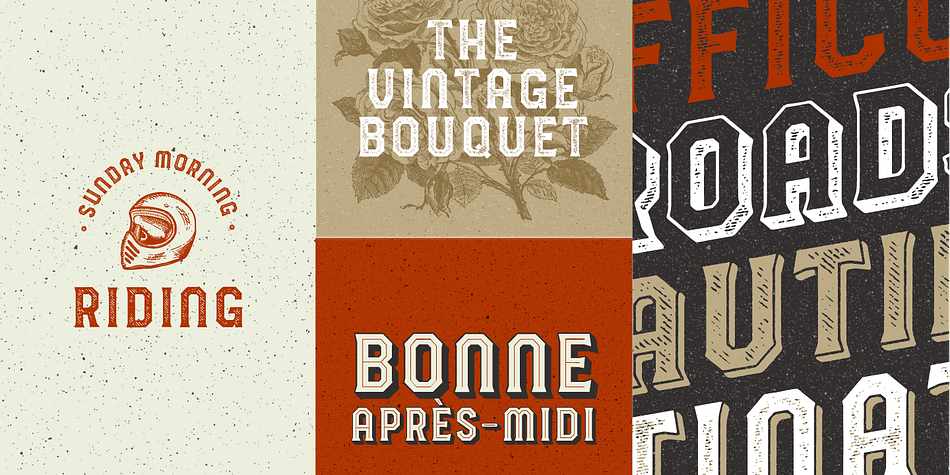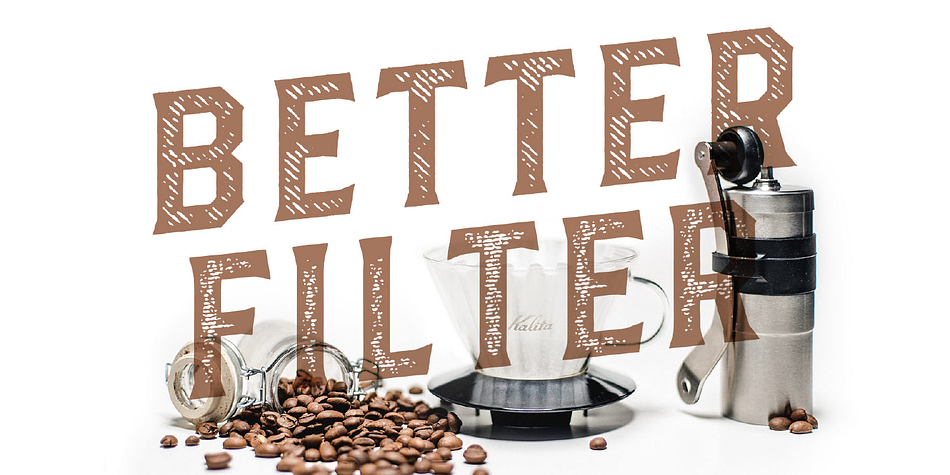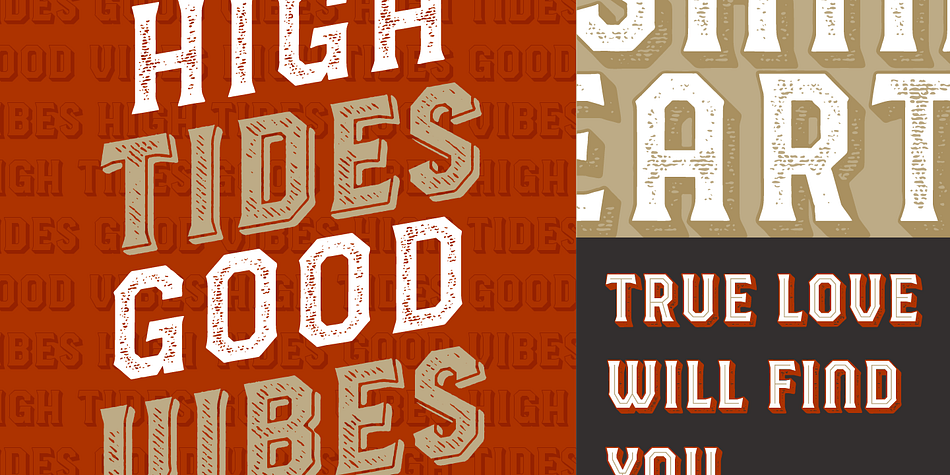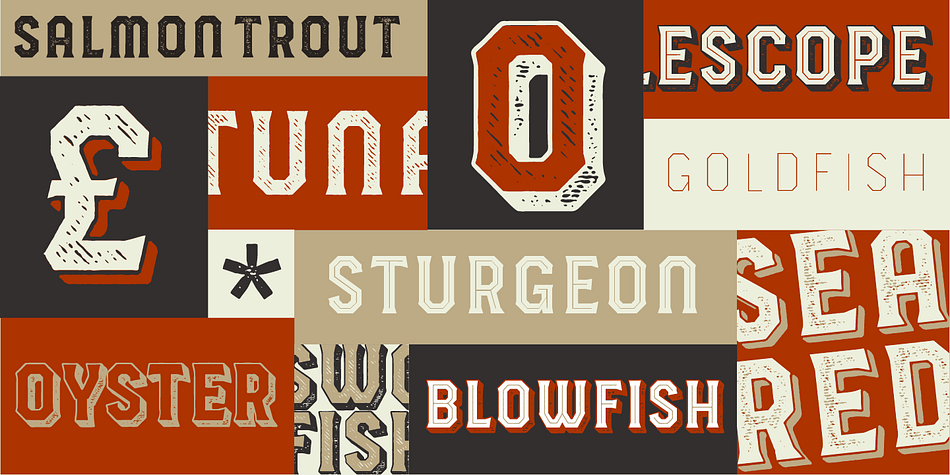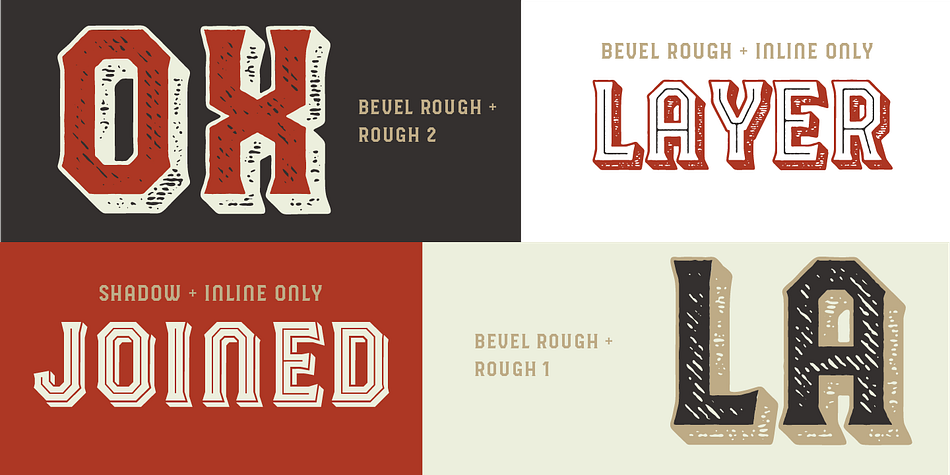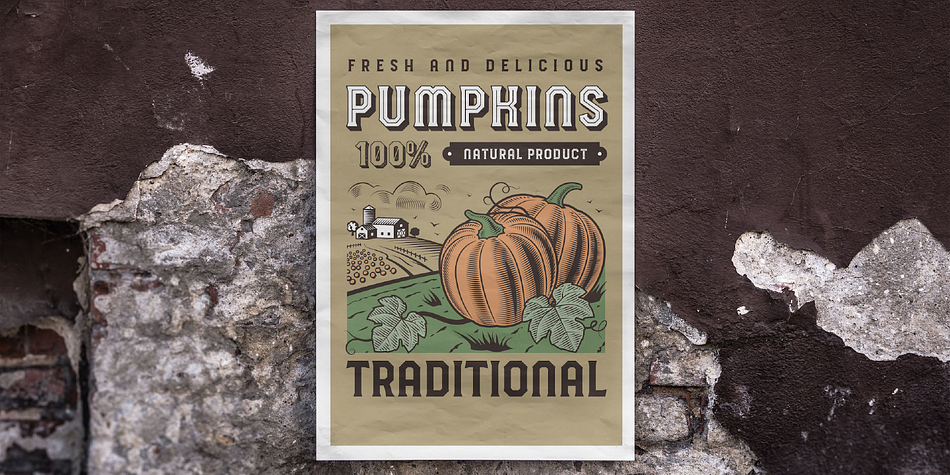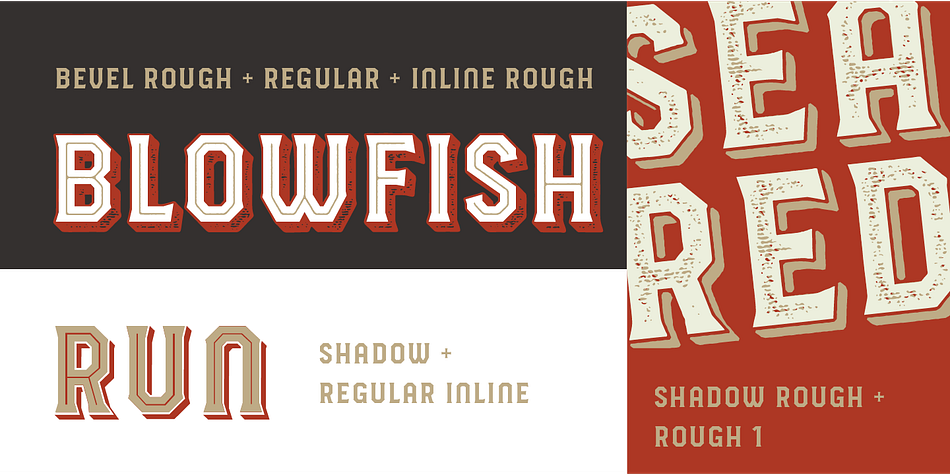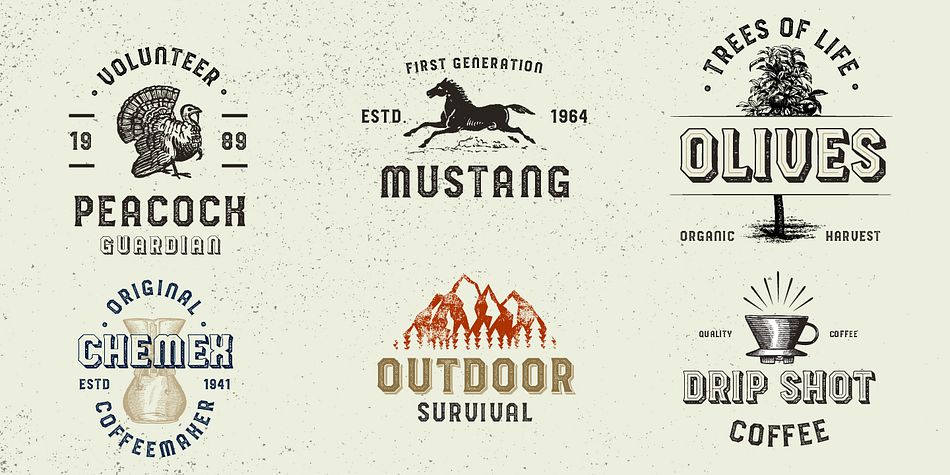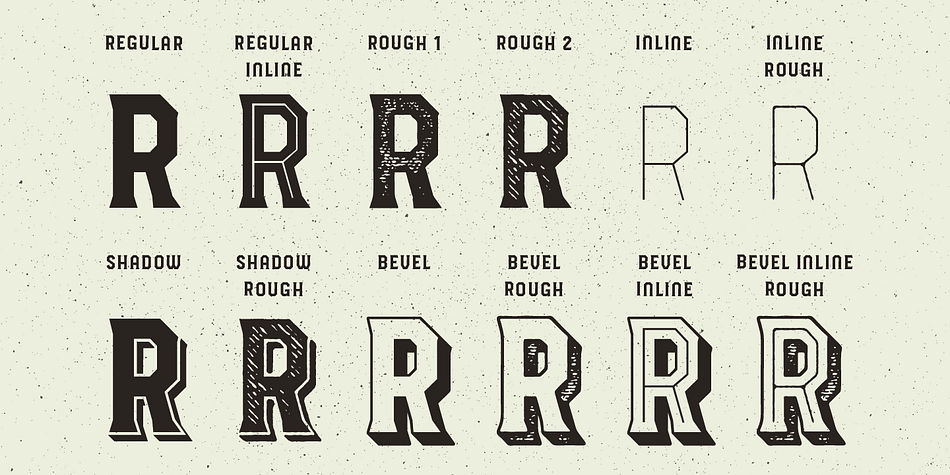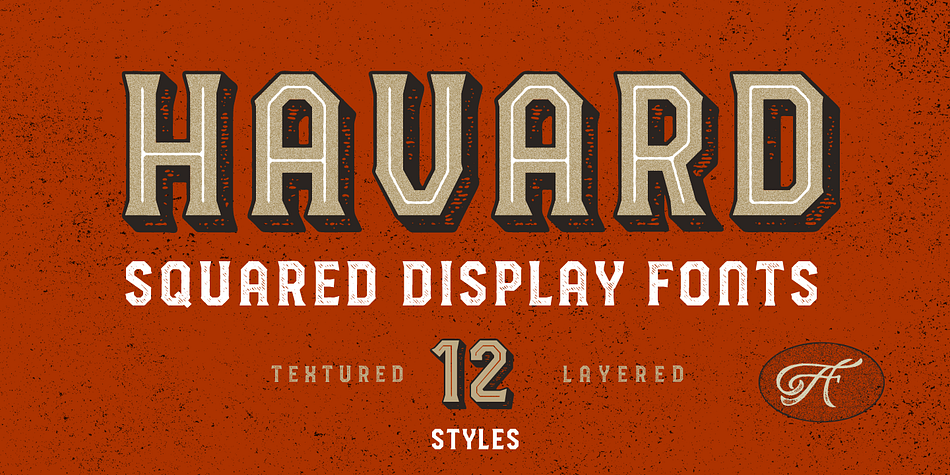
Havard
Havard is a display serif and western font family. This typeface has twelve styles and was published by AF Studio.
Started with a base of geometric shape, Havard is a Strong and Sturdy for a display fonts with a feels of industrial, college style, vintage look, sporty and athletic theme.
Best use for this fonts are for headlines, display, logotype, clothing, or any short text. Havard includes 12 Style version, started with a regular, regular with inline, shadow, bevel. All of the style also have rough version. Since some of them are connected you can mix and match to use it for a layered fonts, just combine what you like as I created on a design sample above.